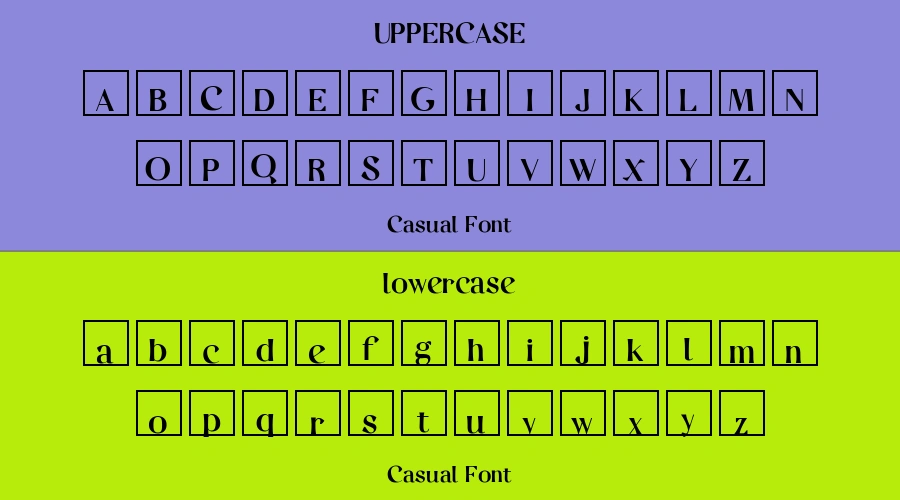
About Casual Font
Casual Font embodies typographic excellence through its masterful combination of sharp terminals and classic beauty. Created for social media content, this typeface delivers exceptional precision and creative potential across all applications. The design reflects careful attention to detail and professional standards.
Advanced capabilities include distinctive rounded apexes and versatile standard ligatures, giving designers creative control. When used in page numbers, Casual Font exhibits remarkable hinting quality. The harmonious balance between stroke modulation and cultural context sets this typeface apart.